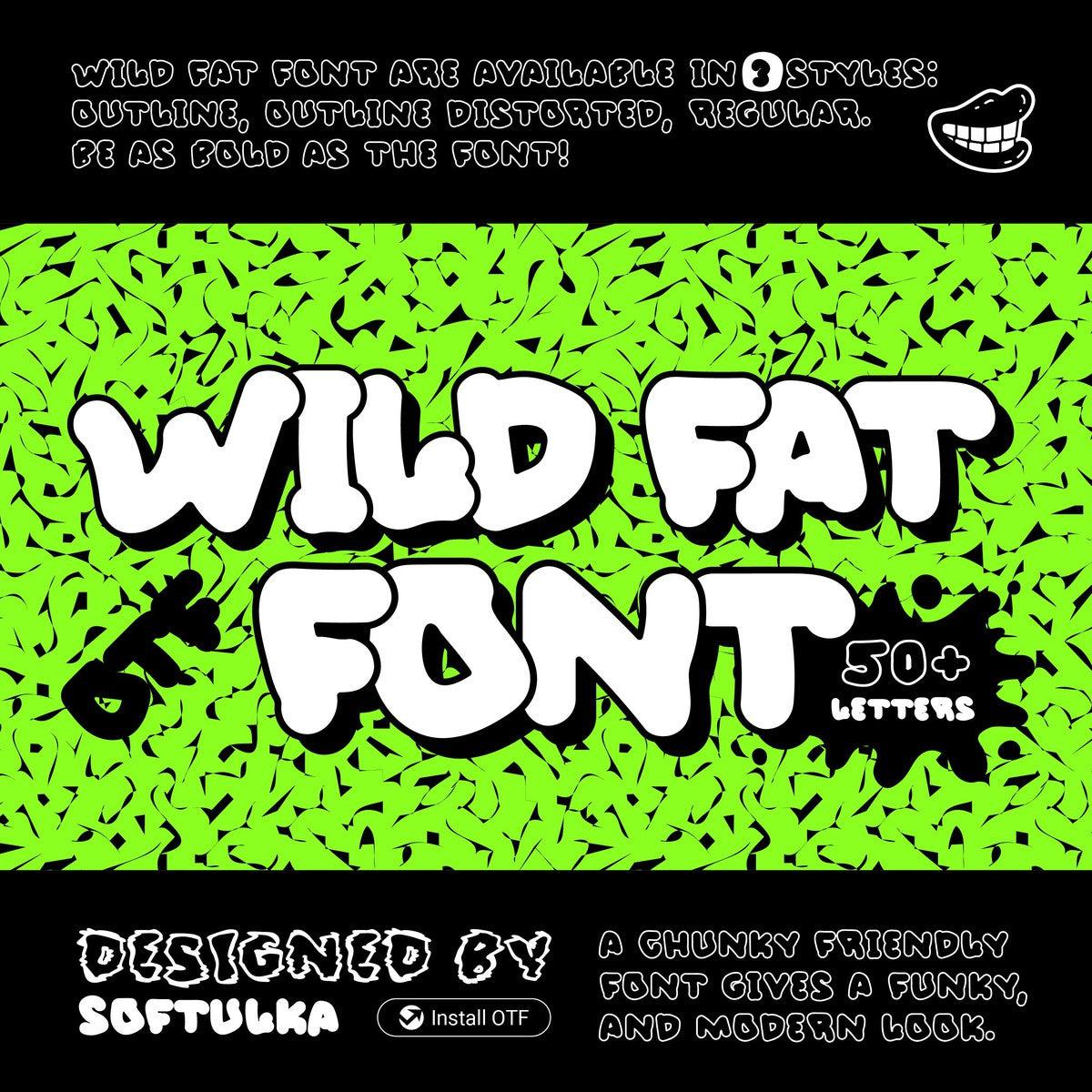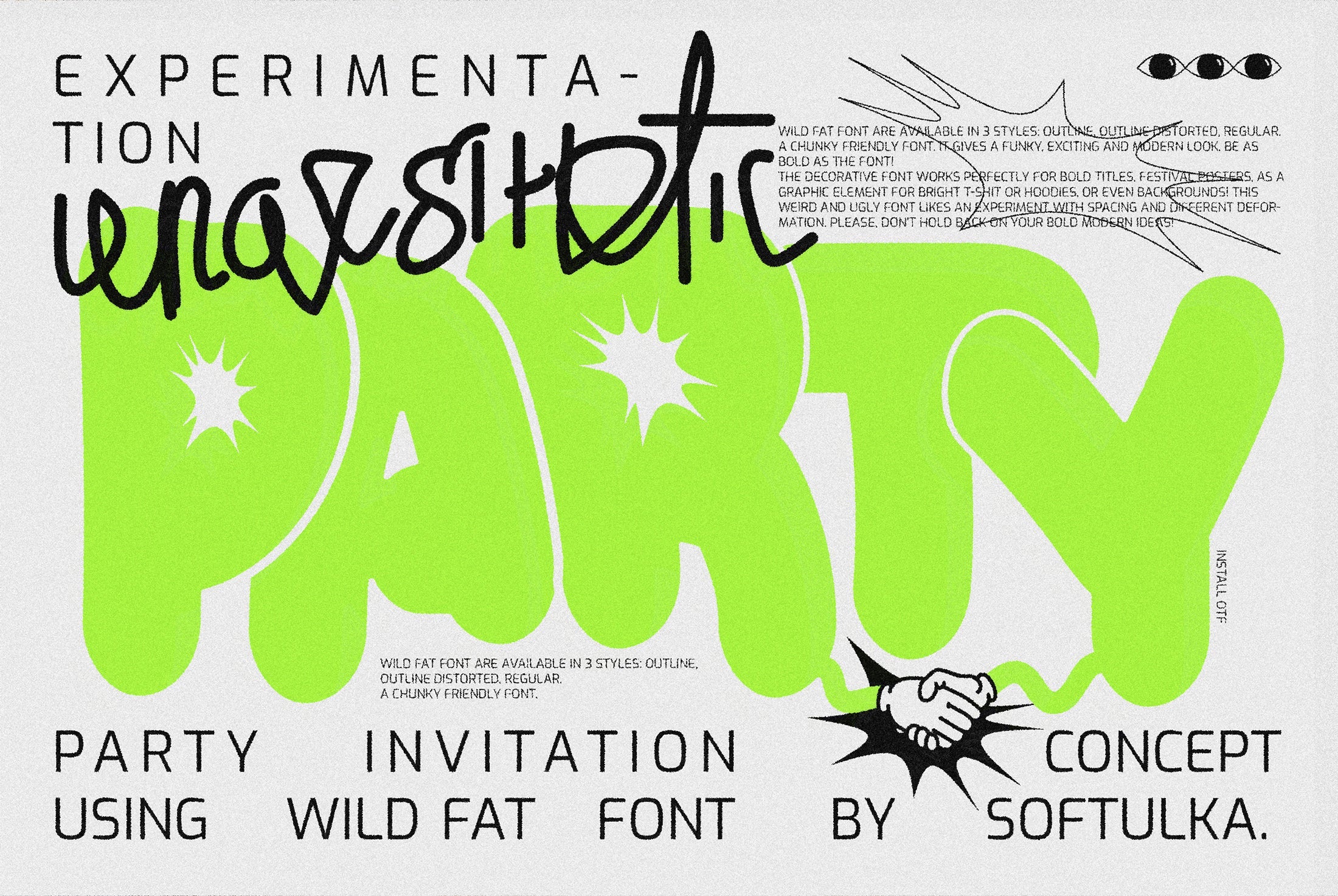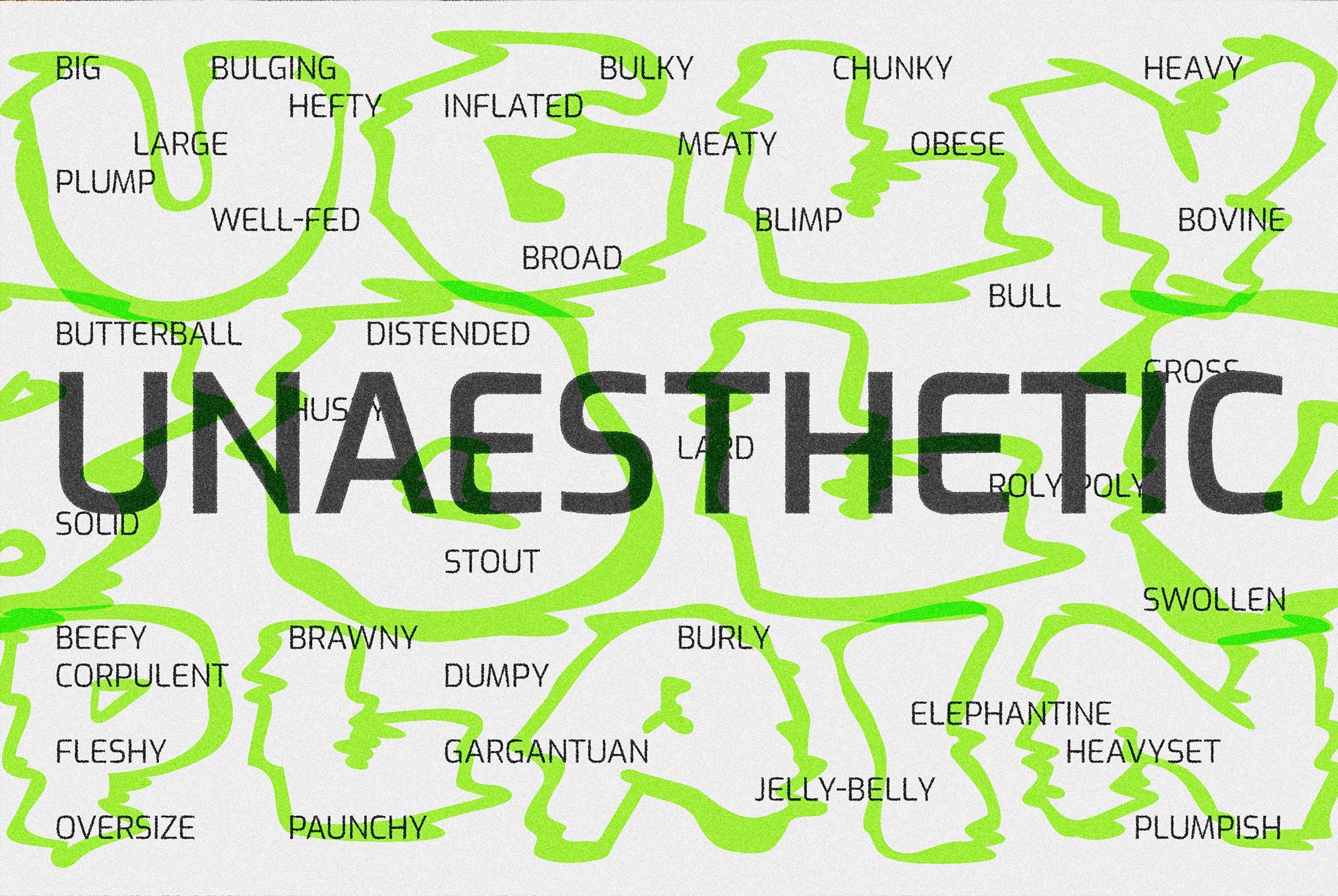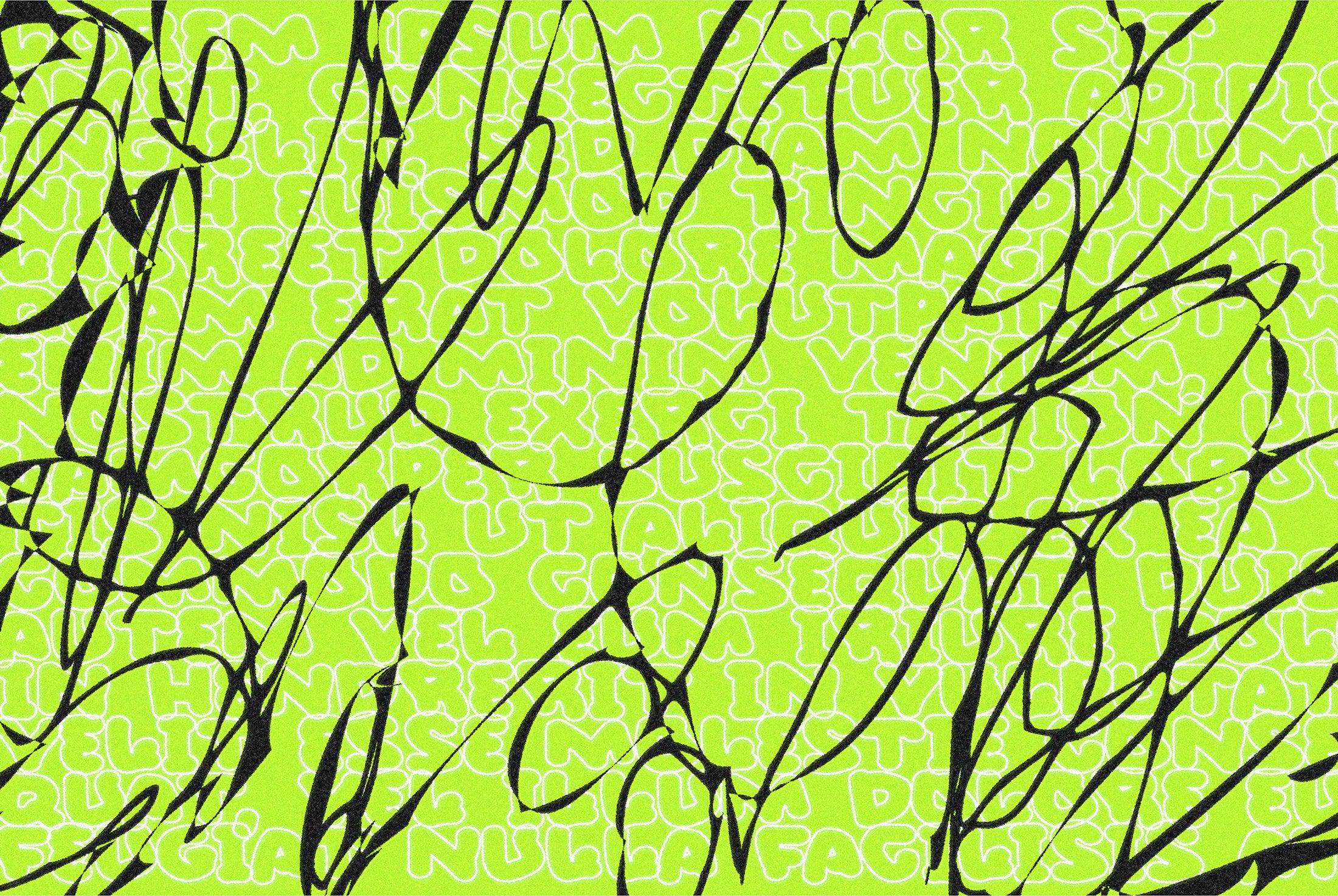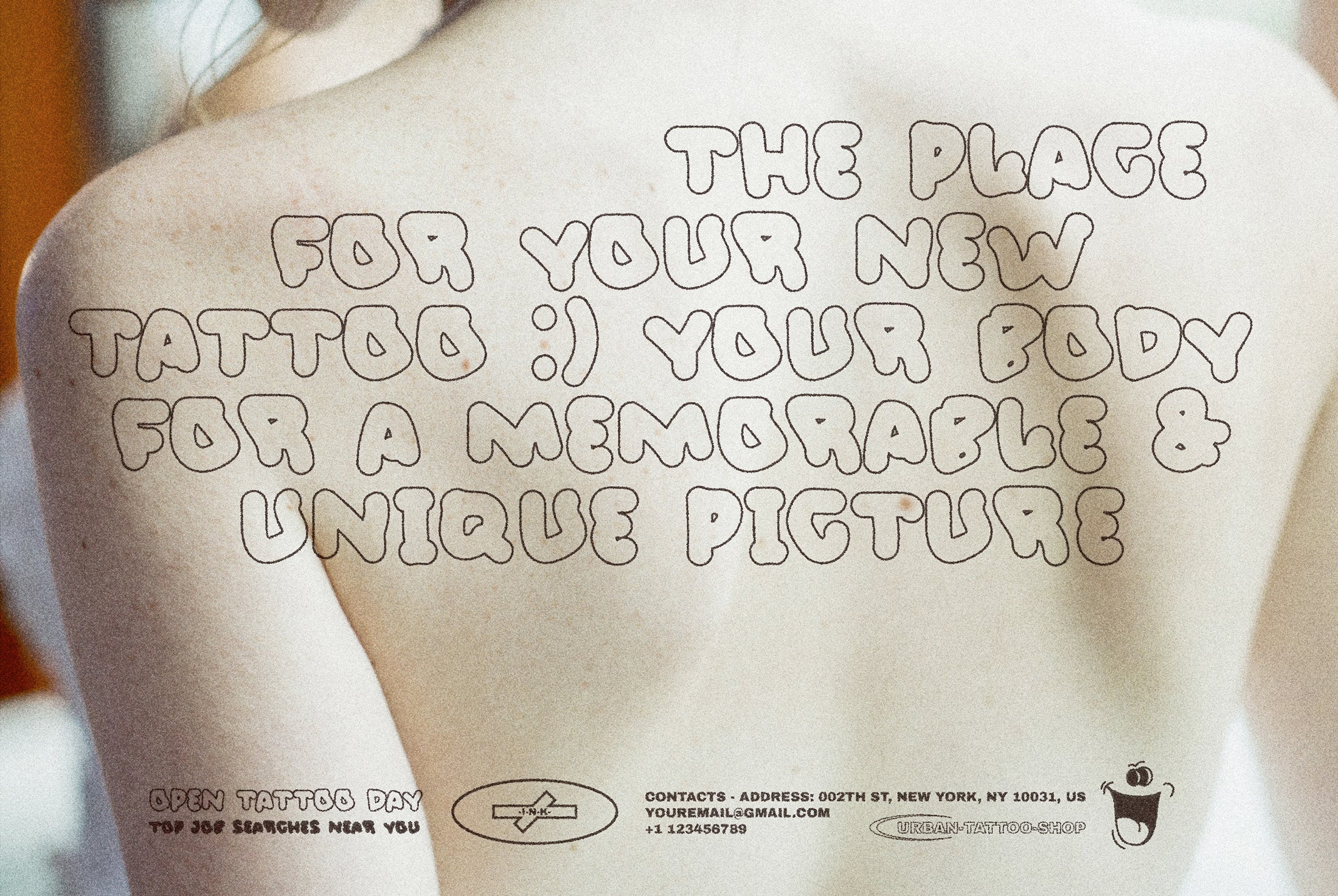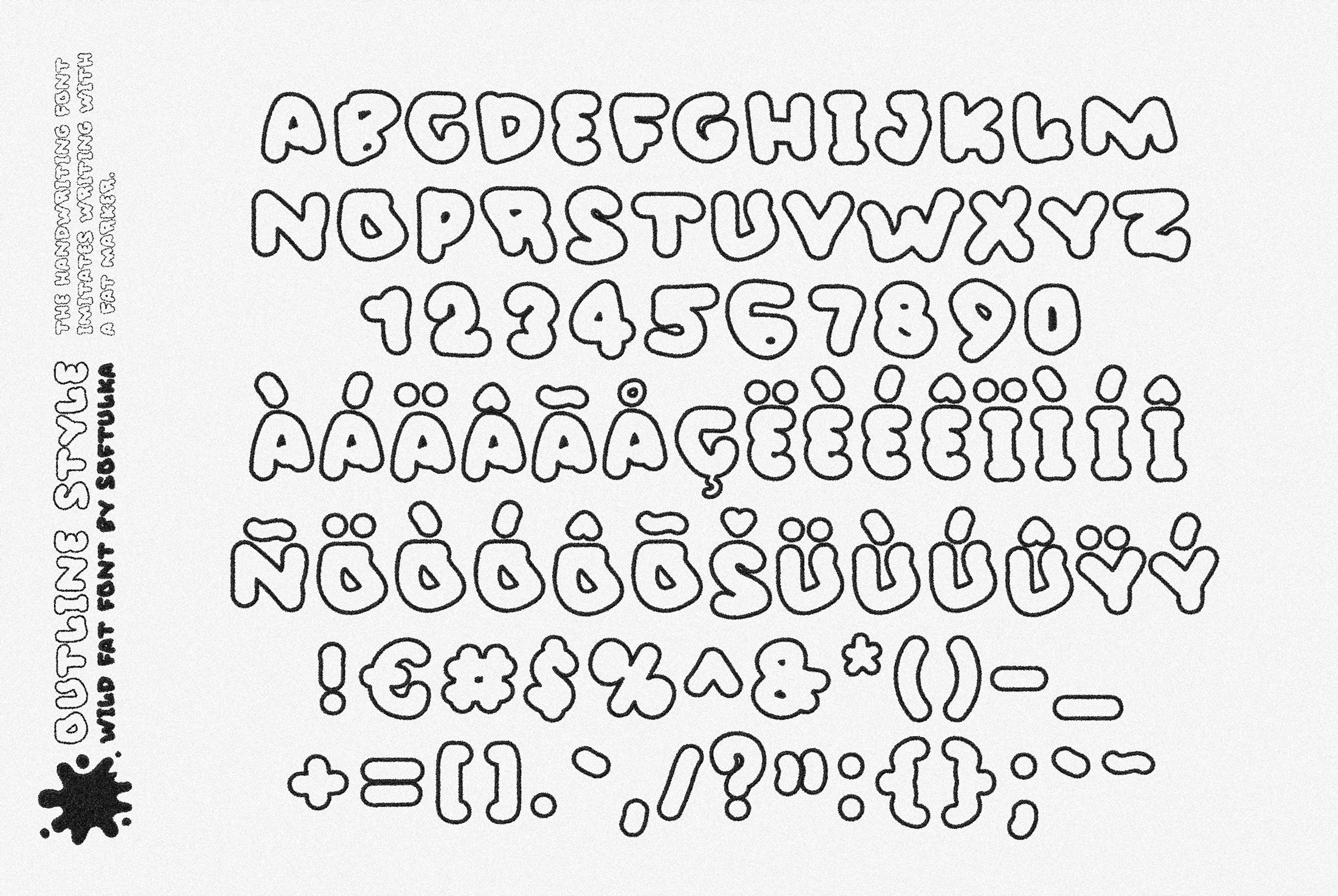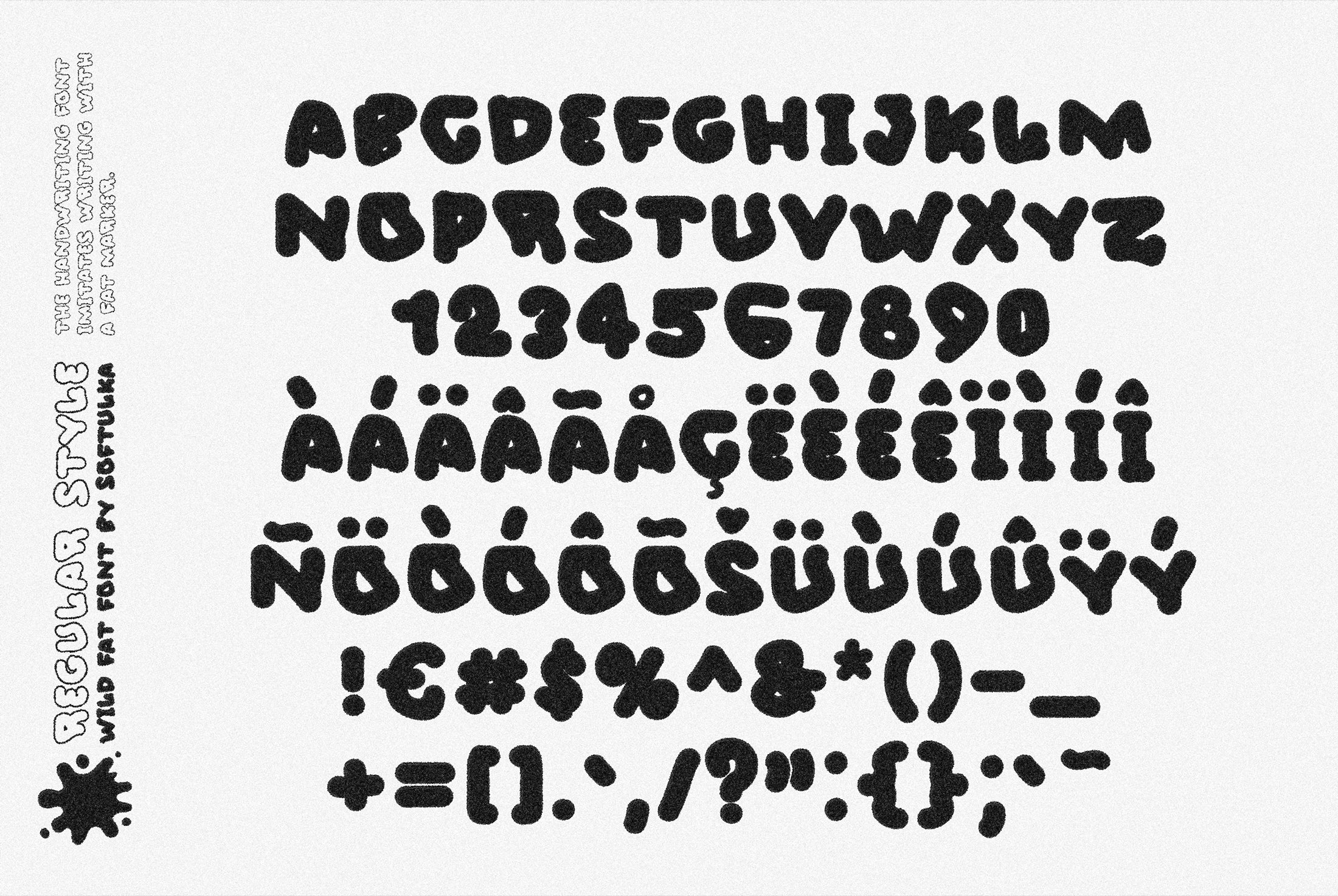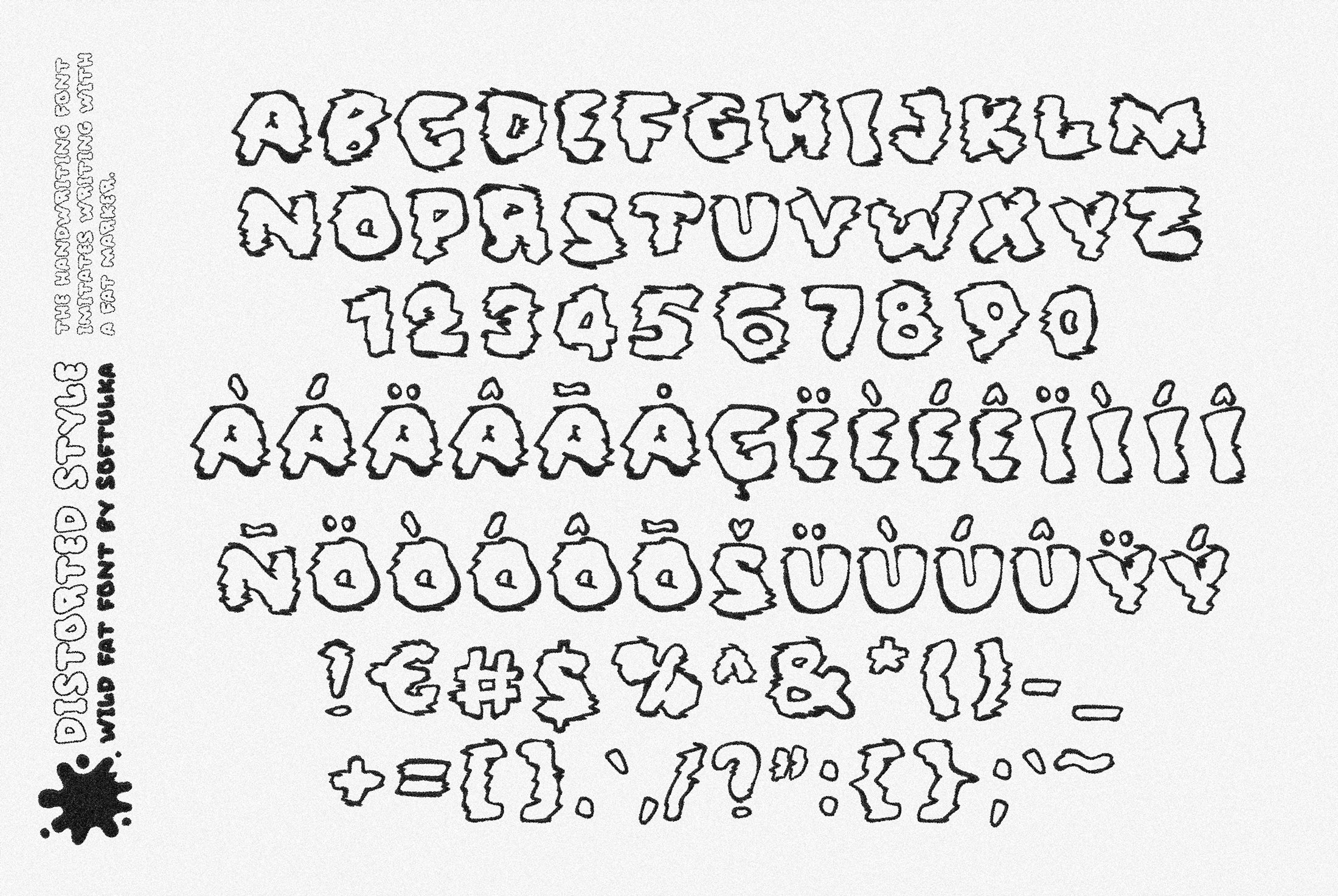
Wild Fat Font
The Wild Fat Font is a playful, experimental display typeface inspired by old cartoons, available in three styles: outline, outline distorted, and regular. The package includes 3 OTF, TTF, and WOFF files for each style, along with AI, EPS, and PDF vector files. Please note, the font does not come with any photos, textures, or effects.
Ideal for playful and experimental graphic design projects. Perfect for bold titles, festival posters, children's apparel, and graffiti concepts, ensuring a vibrant and eye-catching visual impact.